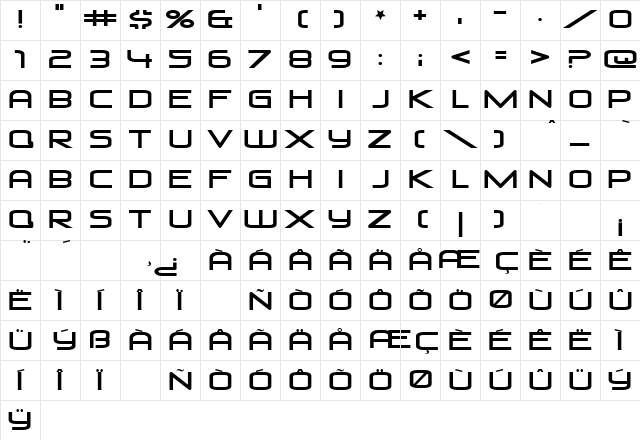
Venus Rising Regular Free Font
Venus Rising Regular
Design Context for Venus Rising
Venus Rising is a composed and adaptable typeface that performs quietly and consistently across a wide range of design contexts.